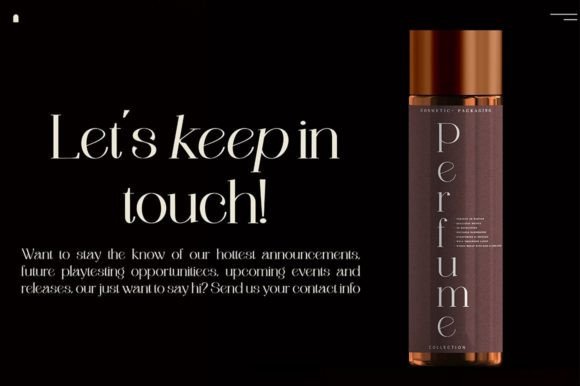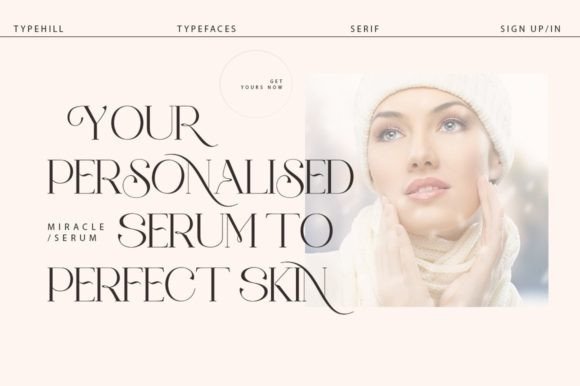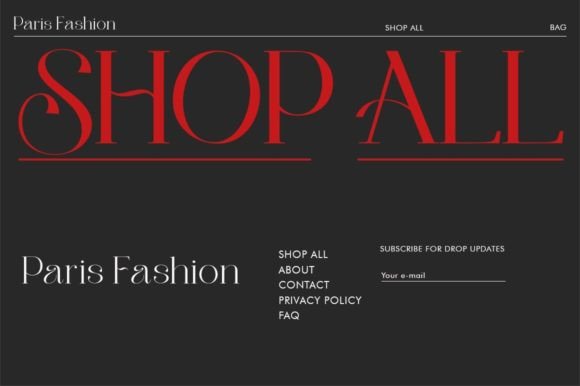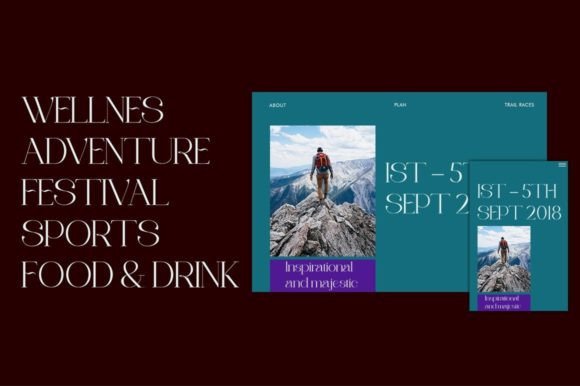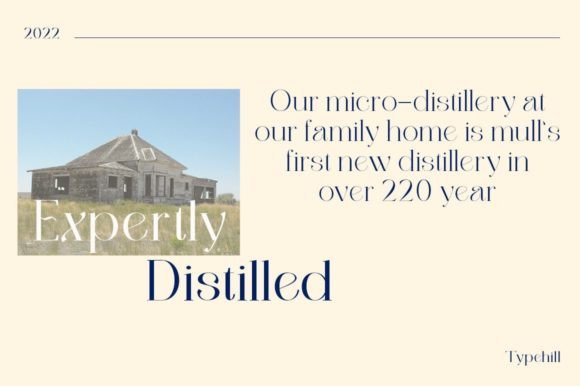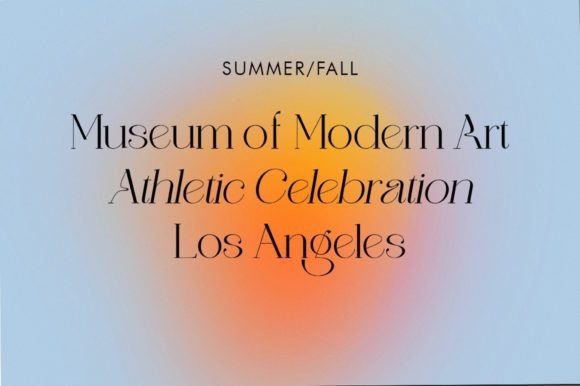
Introduction to Golden Way Font
Golden Way is a subtle and feminine font.
Its sensual and glamorous character is perfect for invitations, labels, menus, logos, fashion, stationery, letterpress, romantic novels, magazines, books, or greeting/wedding cards .